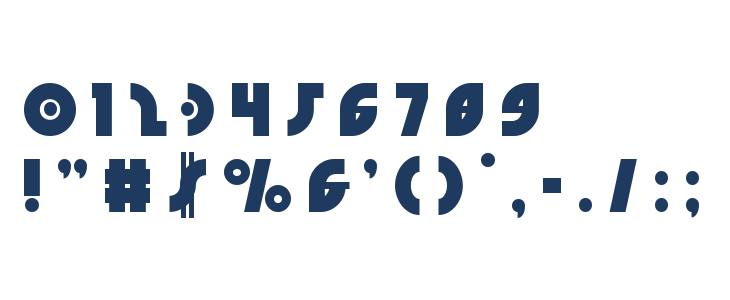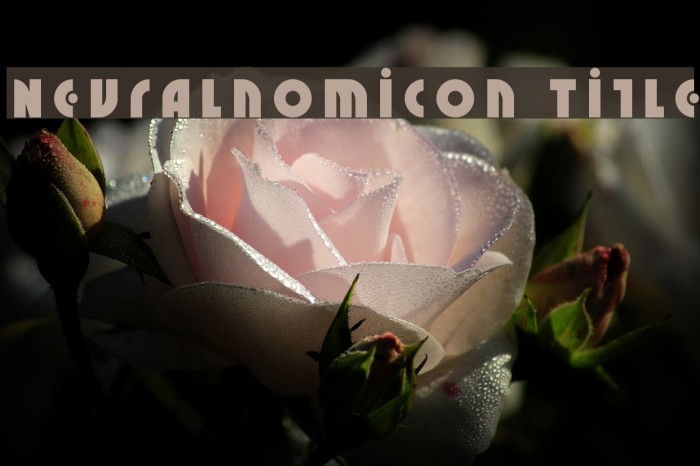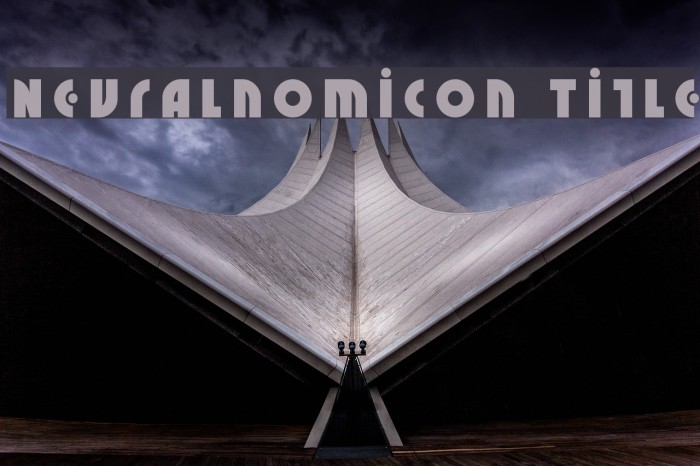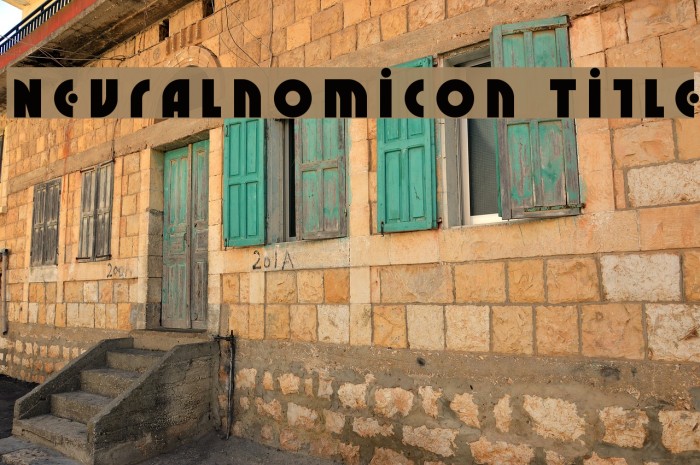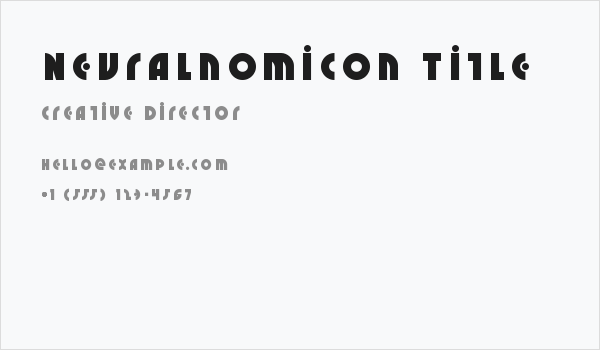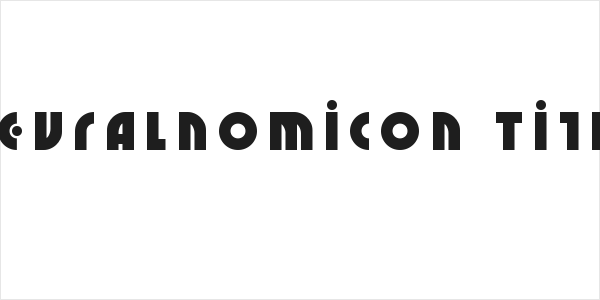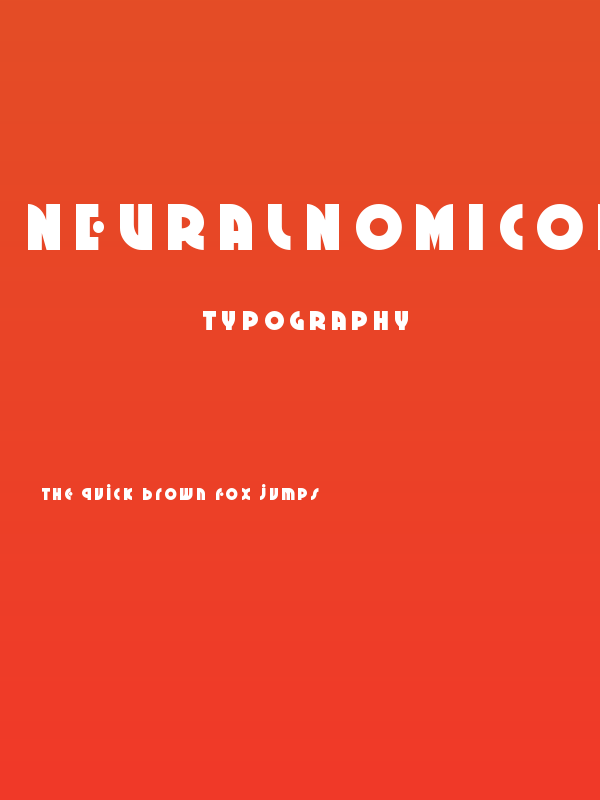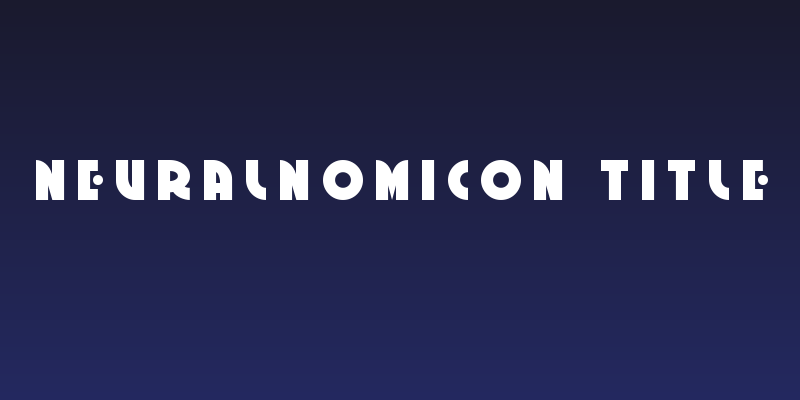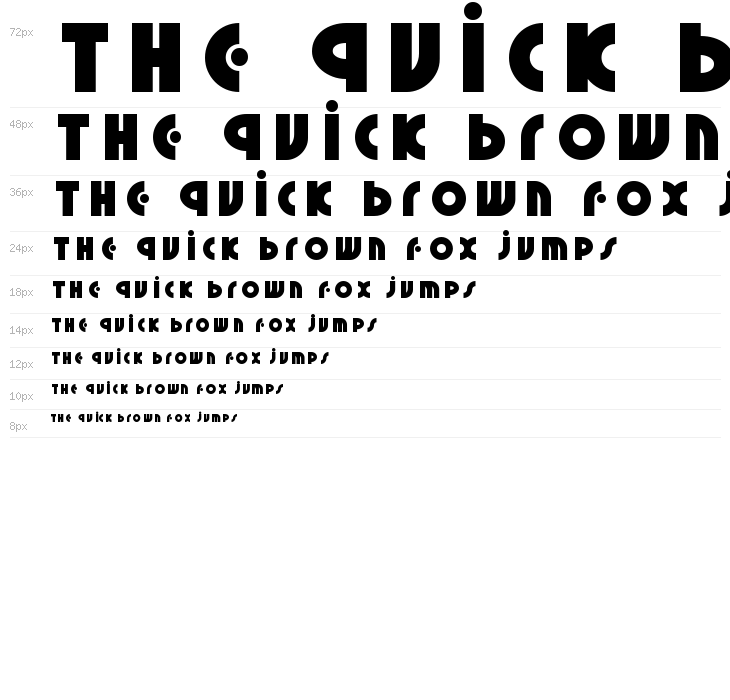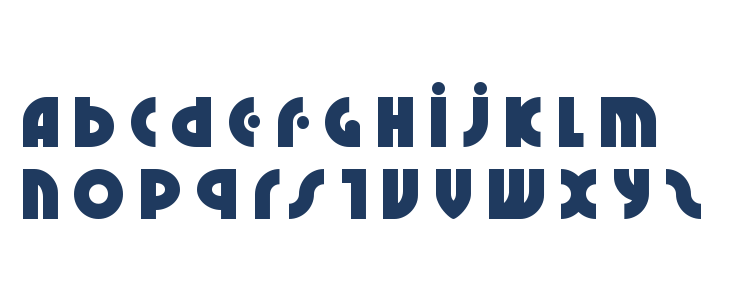
Neuralnomicon Title Font
Neuralnomicon Title Description
This font features a bold and geometric design with a futuristic flair. The characters are constructed with strong, solid lines and circular cutouts, giving it a unique and modern appearance. The uppercase and lowercase letters maintain a consistent style, with rounded edges and distinct shapes that enhance readability while adding a decorative touch. The numerals and special characters follow the same design principles, ensuring uniformity across all glyphs. This font's distinctive style makes it ideal for projects that require a bold and eye-catching typeface.
| Overall Style | Futuristic, Decorative |
| Proposed Projects | Ideal for sci-fi themed projects, branding, posters, and digital artwork. |